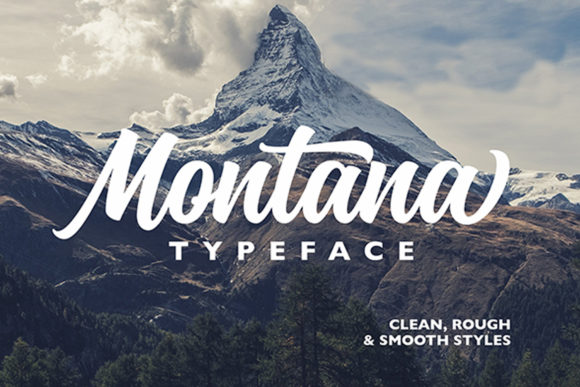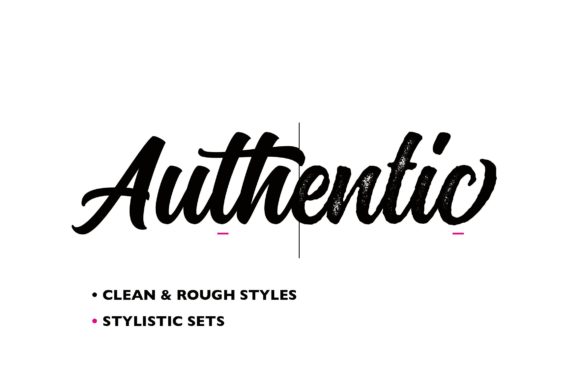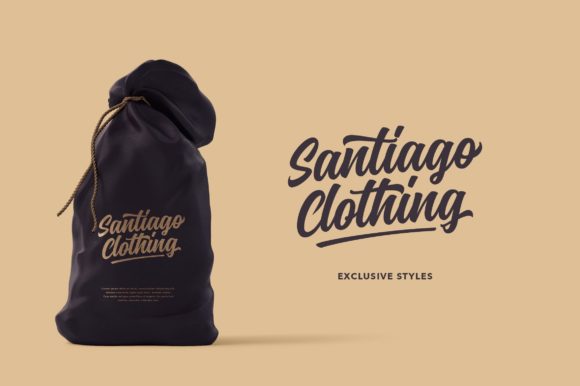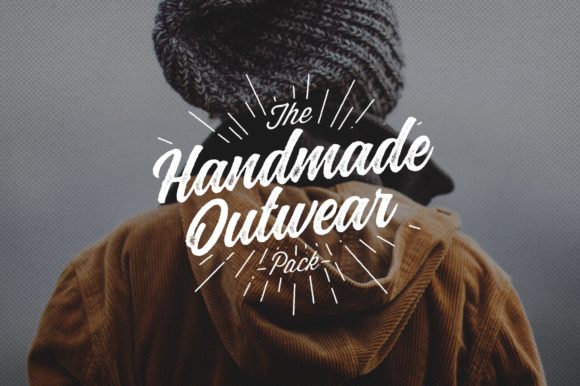
Montana Font: Bold Handwritten Script for Logo Design
About the Montana Font
Welcome to the world of Montana Font, a typeface that will inspire your next great project. Montana is a gorgeous, cursive and thick lettered handwritten font, crafted to give your headlines and logotype projects a stylish touch. This font reads as strong, confident, and dynamic and can add tons of nostalgic character to your designs. Montana is PUA encoded which means you can access all of the glyphs and swashes with ease!
Montana’s bold, confident strokes make it ideal for headlines, logos, and short, impactful text on packaging or posters. Its nostalgic feel works well for brands aiming for a vintage or handcrafted aesthetic. However, its thick strokes and cursive style make it less suitable for body text or UI elements where readability is paramount. Avoid using it for long paragraphs or small sizes.
Pairing Montana with a clean sans-serif like Open Sans for body copy creates a strong contrast and balanced design. For a more playful feel, consider pairing it with a geometric sans-serif such as Futura. If a more refined look is desired, a delicate serif font like Garamond could complement Montana’s strong character.
Montana Font Usage Examples
Montana Font Example